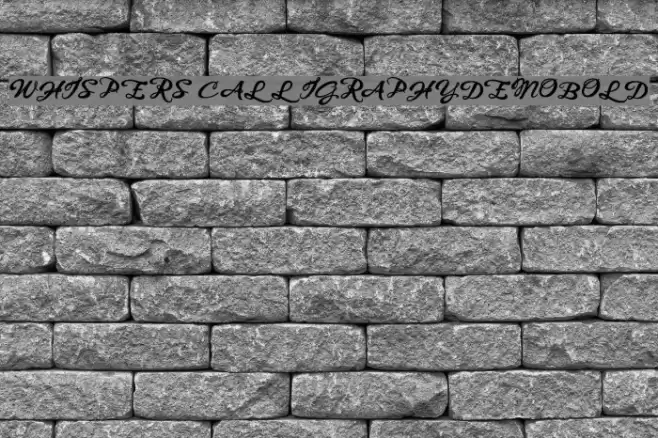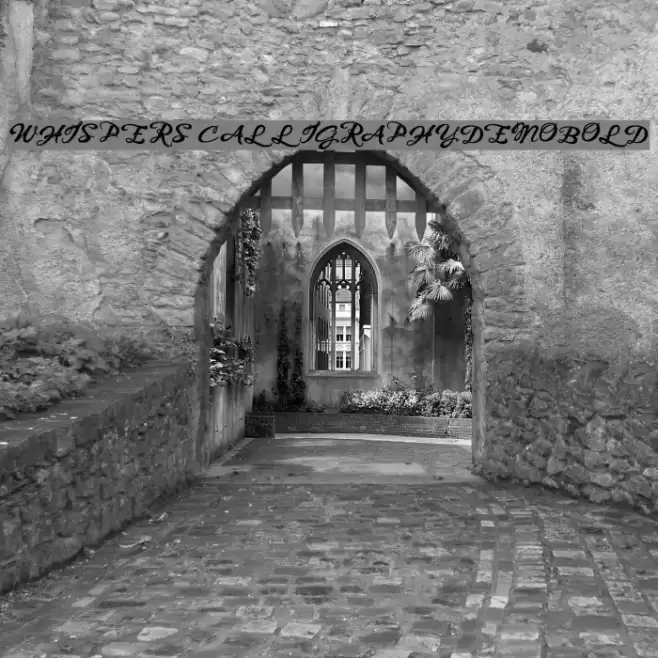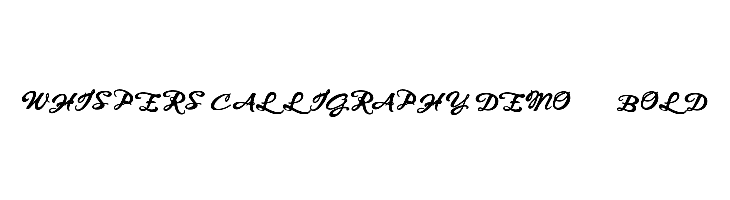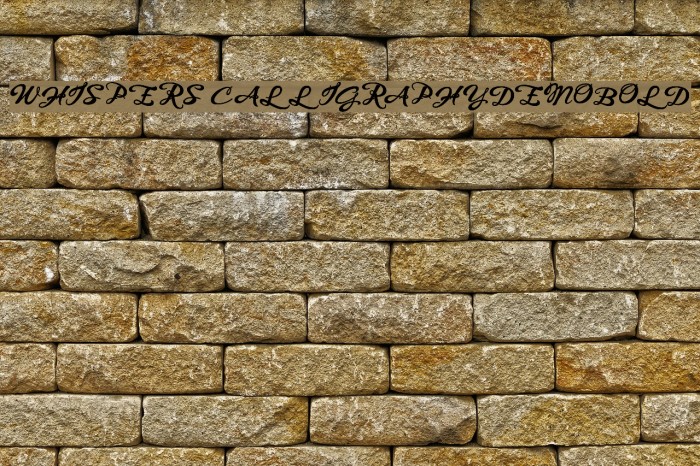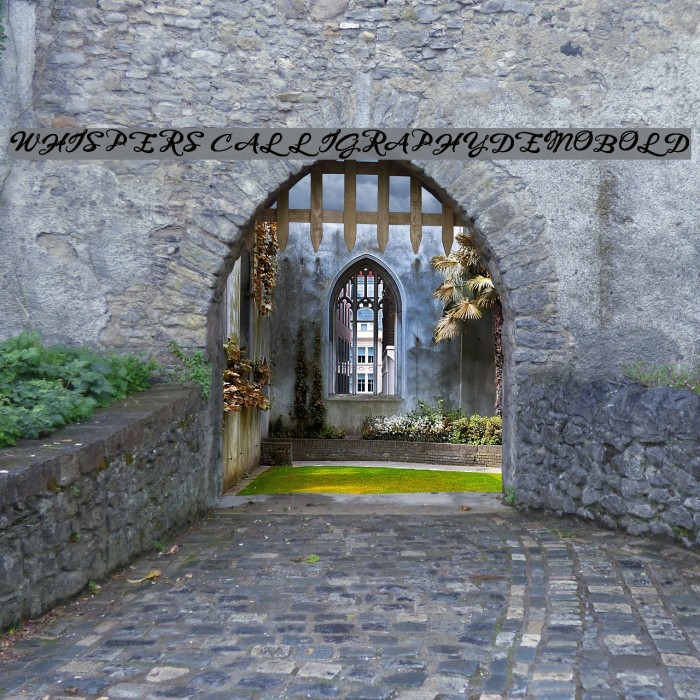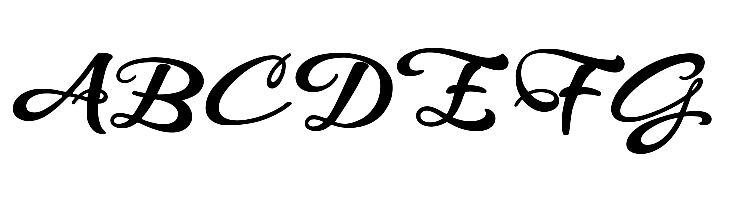
WHISPERS CALLIGRAPHY_DEMO_sinuous_BOLD Font
WHISPERS CALLIGRAPHY_DEMO_sinuous_BOLD Description
This font features an elegant and flowing script style, characterized by its sinuous and cursive letterforms. The strokes are smooth and continuous, giving it a handwritten appearance that is both sophisticated and artistic. The uppercase letters exhibit a graceful flair, with intricate loops and swashes that add a decorative touch. The overall design is bold, with a consistent thickness throughout the characters, enhancing its readability while maintaining an ornate quality. This font is ideal for projects that require a touch of elegance and personal expression.
An elegant, flowing script font with bold, cursive letterforms from Uncategorized fonts.
- Proposed Projects: Ideal for wedding invitations, greeting cards, branding, and elegant logos.
- Use Case: Logos, Invitations, Decorative Text